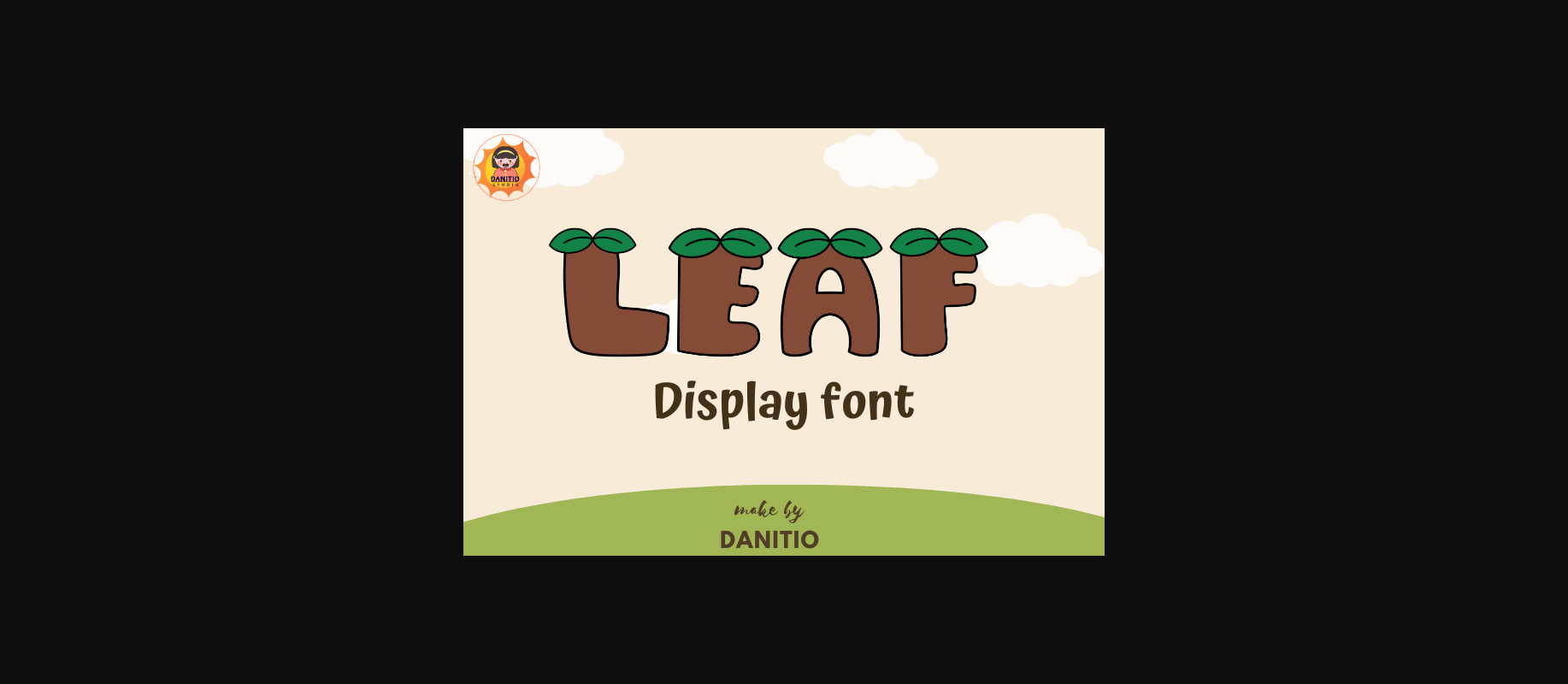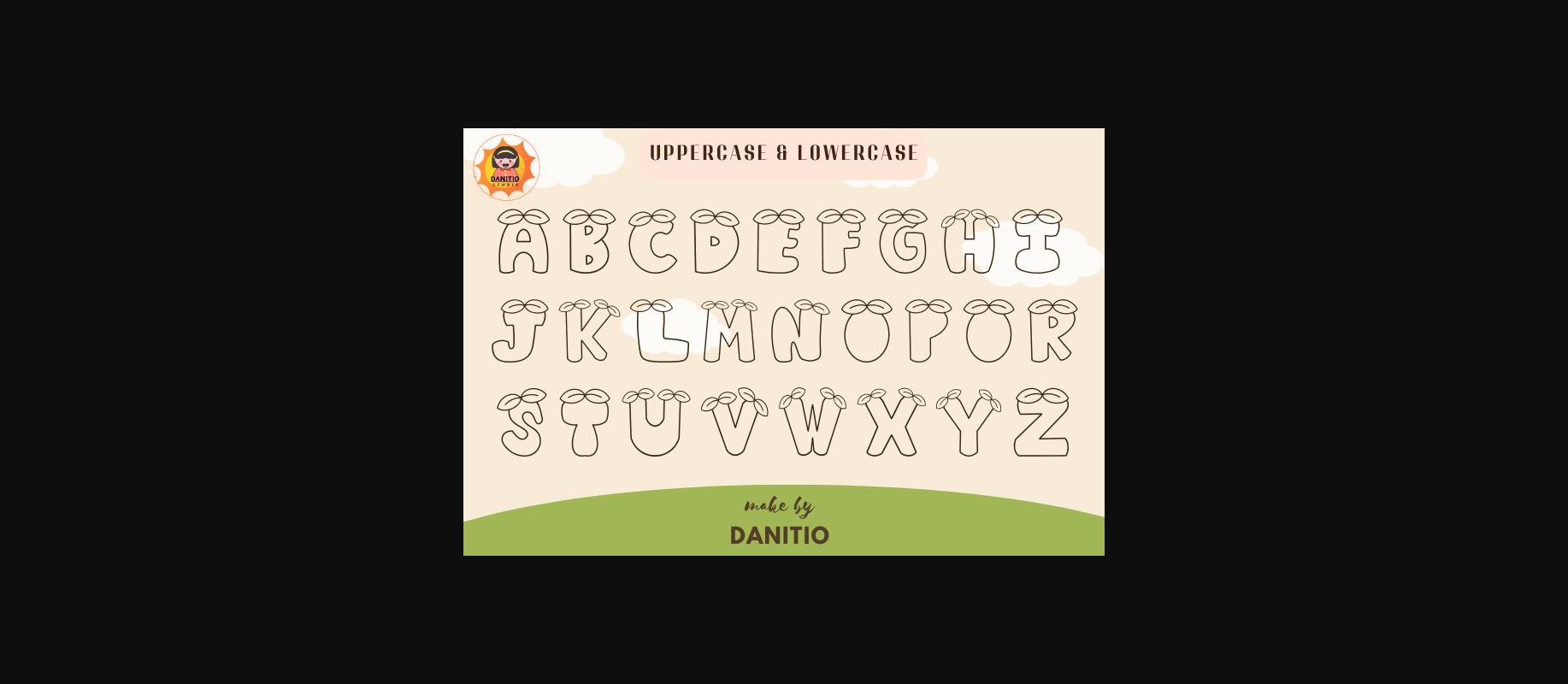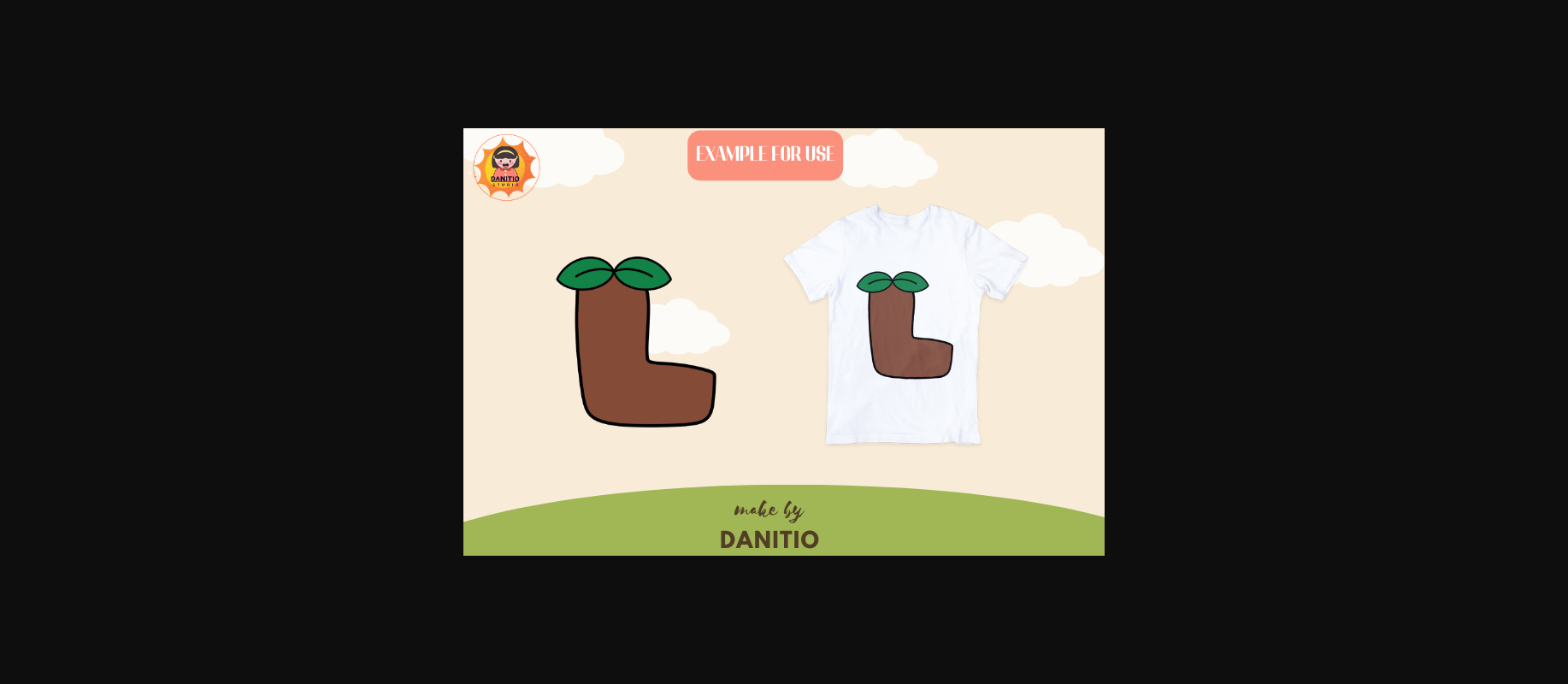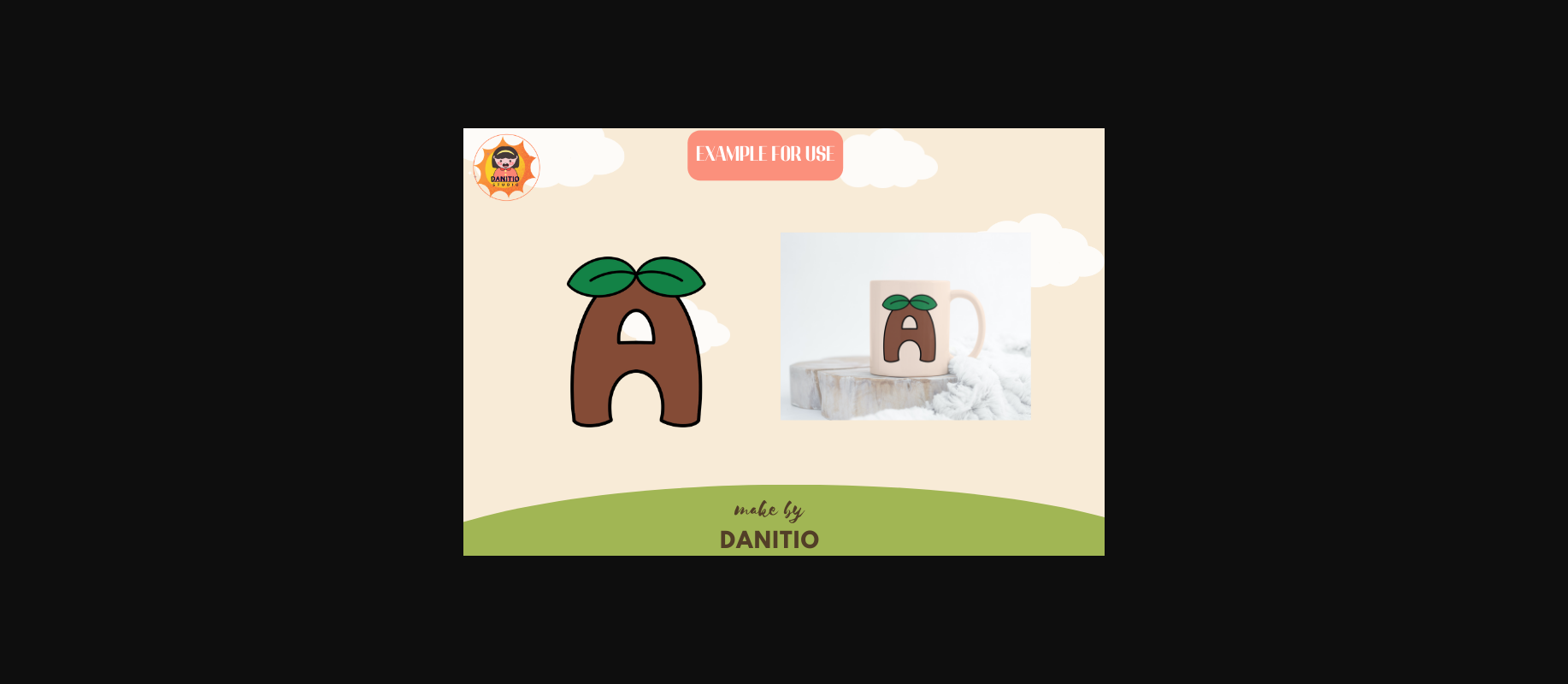
Leaf Font
About Leaf Font
Leaf is a beautiful and gentle decorative display font. It features two leaves decorating the letters causing cuteness and tenderness and creating a distinct style, making it suitable for key designs. Whether you use it for digital artefacts Presentations or greeting cards, t-shirts, mugs or tote bags it will be the perfect fit.